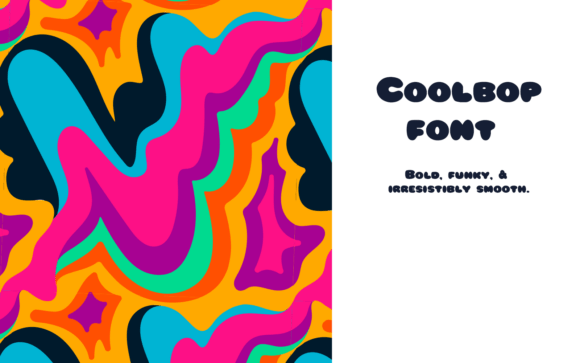
Bring Back the Golden Rhythm with Coolbop: The Font that Moves like Music
In the world of typography, few fonts manage to capture the essence of music and translate it into visual form. Coolbop, however, is one such exceptional font that embodies the spirit of rhythm and movement. With its curvy lines and vintage energy, Coolbop is the perfect choice for designers looking to add a touch of classic cool to their projects. Whether you’re creating jazz posters, lounge menus, or retro rebrands, Coolbop is the ideal font to let your type play its tune.
The Inspiration Behind Coolbop
Coolbop draws inspiration from the golden era of jazz, when music was synonymous with style and sophistication. The font’s curvy lines and fluid movements evoke the feeling of a saxophone’s smooth notes or the swing of a jazz dancer’s skirt. Coolbop’s vintage energy is reminiscent of the iconic posters and advertisements from the 1940s and 1950s, when typography was an art form that commanded attention and conveyed emotion.
Design Features of Coolbop
Coolbop’s design features are what set it apart from other fonts. Its bold, funky, and irresistibly smooth curves make it perfect for headlines, titles, and short texts. The font’s unique characteristics include:
• Curvy lines and fluid movements that give it a dynamic, musical feel
• Vintage energy that evokes the classic style of the 1940s and 1950s
• Bold and funky, yet smooth and elegant
• Perfect for use in jazz posters, lounge menus, retro rebrands, and more
Use Cases for Coolbop
Coolbop is an incredibly versatile font that can be used in a variety of design projects. Here are some ideal use cases for Coolbop:
• Jazz Posters: Create eye-catching posters for jazz concerts, festivals, or club events with Coolbop’s bold and funky style.
• Lounge Menus: Add a touch of vintage sophistication to your lounge or restaurant menu with Coolbop’s smooth and elegant curves.
• Retro Rebrands: Give your brand a retro makeover with Coolbop’s classic style and energetic vibe.
• Storytelling: Use Coolbop to create engaging and visually appealing stories, comics, or graphic novels.
Why Choose Coolbop?
With so many fonts available, why choose Coolbop? Here are a few reasons why Coolbop stands out:
• Unique Style: Coolbop’s distinctive curvy lines and vintage energy make it a one-of-a-kind font that will set your designs apart.
• Versatility: Coolbop can be used in a wide range of design projects, from posters and menus to stories and rebrands.
• Ease of Use: Coolbop is easy to read and works well in both large and small sizes, making it perfect for various applications.
Coolbop is more than just a font – it’s a design statement that brings back the golden rhythm of jazz and vintage style. With its curvy lines, vintage energy, and bold, funky curves, Coolbop is the perfect choice for designers looking to add a touch of classic cool to their projects. Whether you’re creating jazz posters, lounge menus, or retro rebrands, Coolbop is the ideal font to let your type play its tune. So why wait? Get ready to swing to the beat with Coolbop!